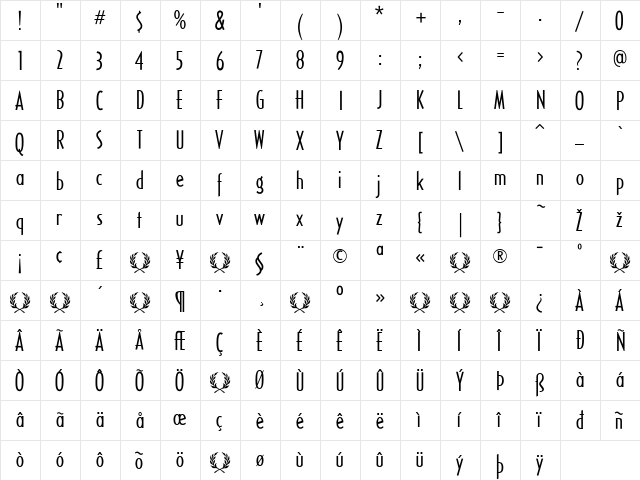
Romeo Regular
| Foundry | The Font Bureau, Inc |
Design Context for Romeo Typeface
Romeo takes a measured approach to typography — its balanced proportions and neutral character make it a reliable workhorse for both digital and print work.
Pro Tip: Use Romeo in both headline and body roles to test its range before committing to a single application.